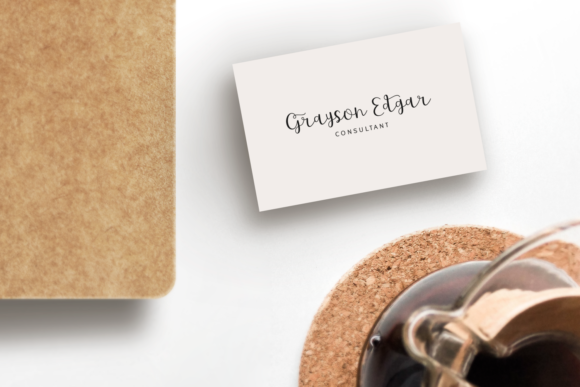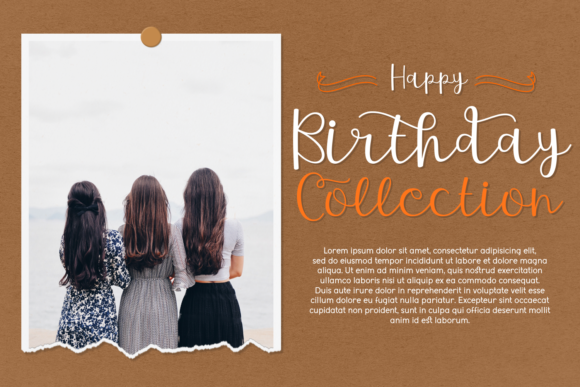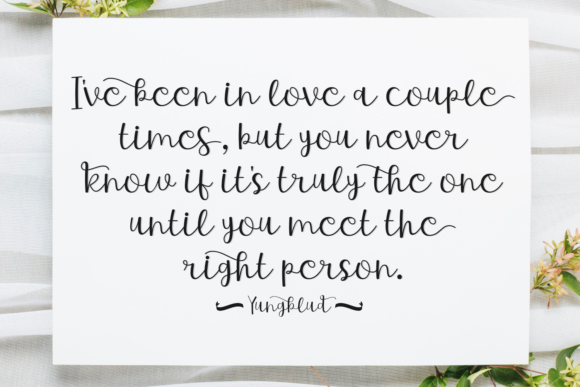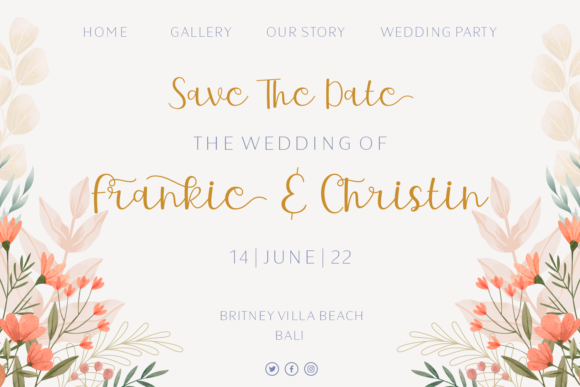
Scribble of Tenderness Font
About Scribble of Tenderness Font
Scribble of Tenderness is a beautiful script font with an elegant touch. This beautiful calligraphy typeface is perfect for wedding invitations, birthday cards, business cards, quotes, save-the-date cards, photography designs, etc.